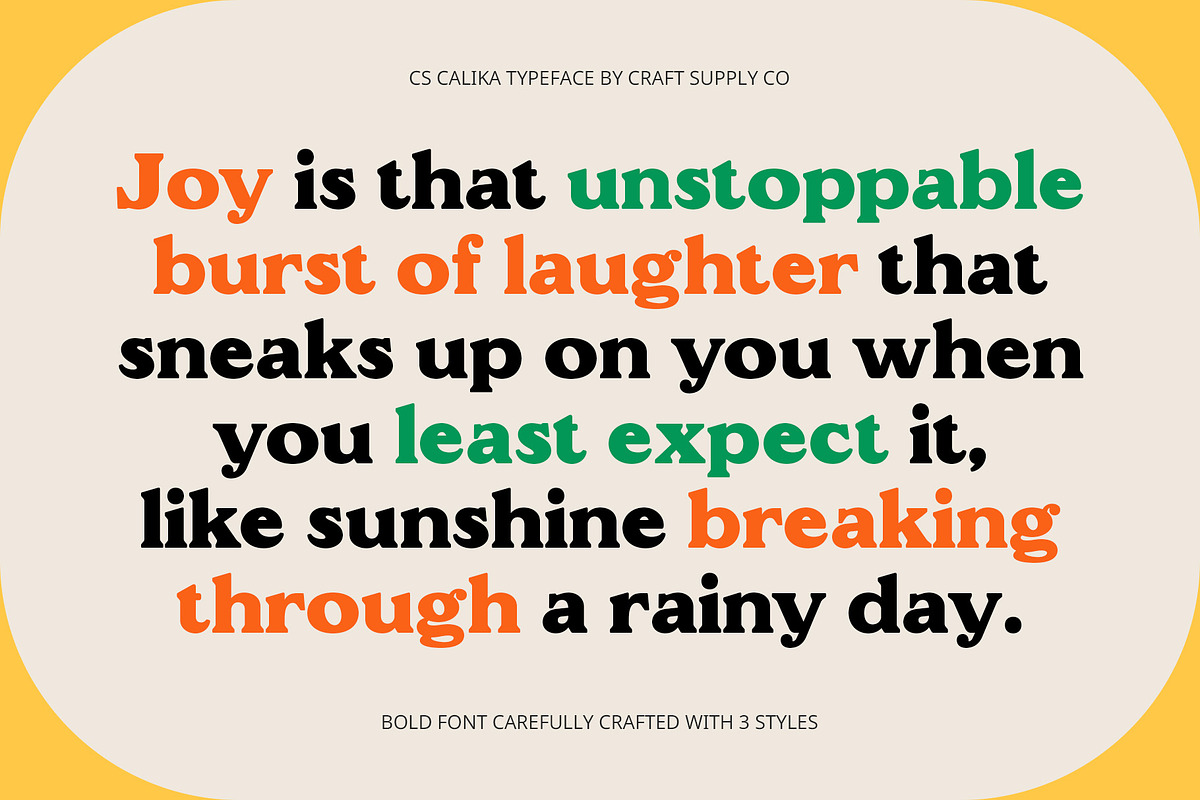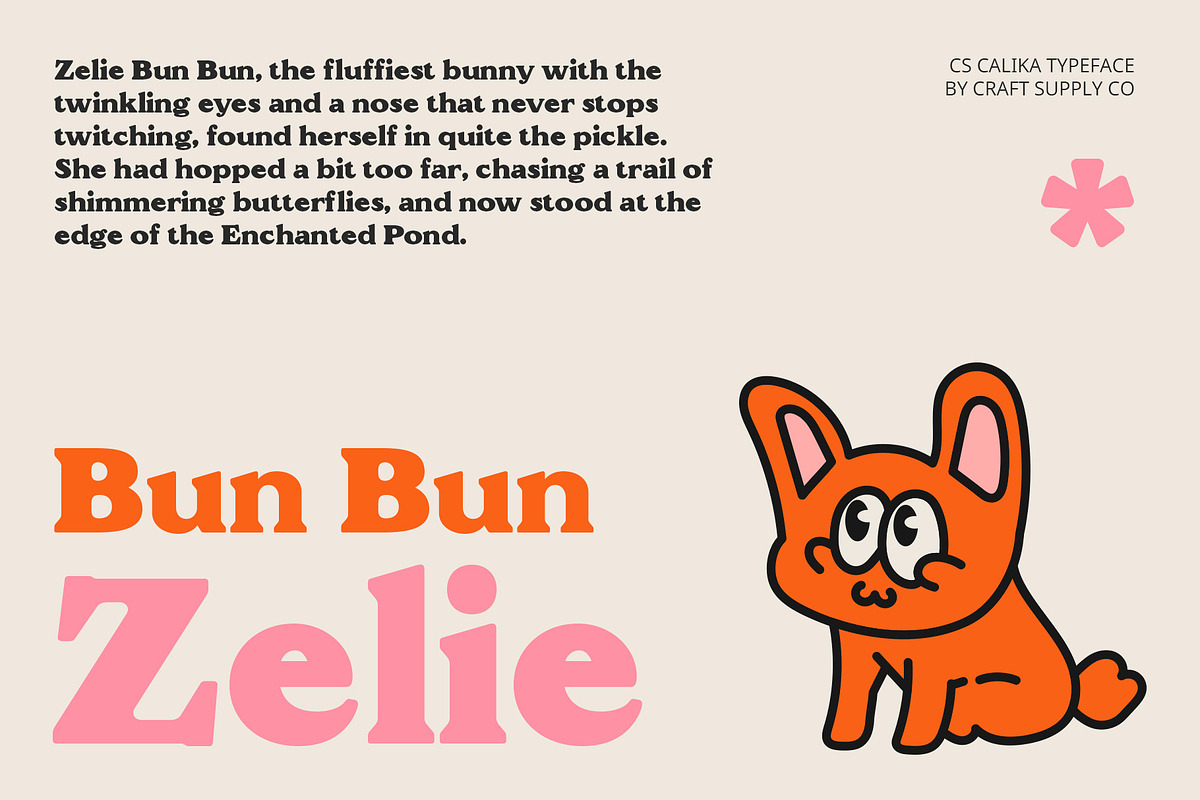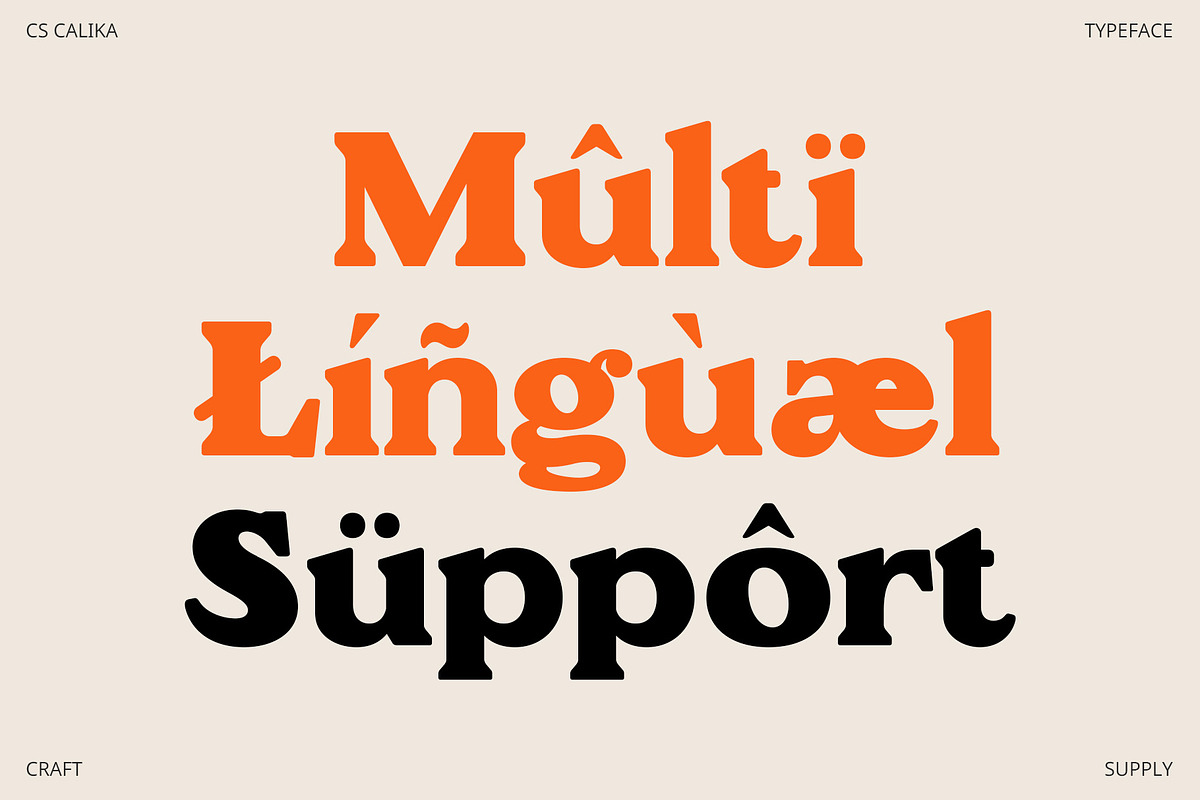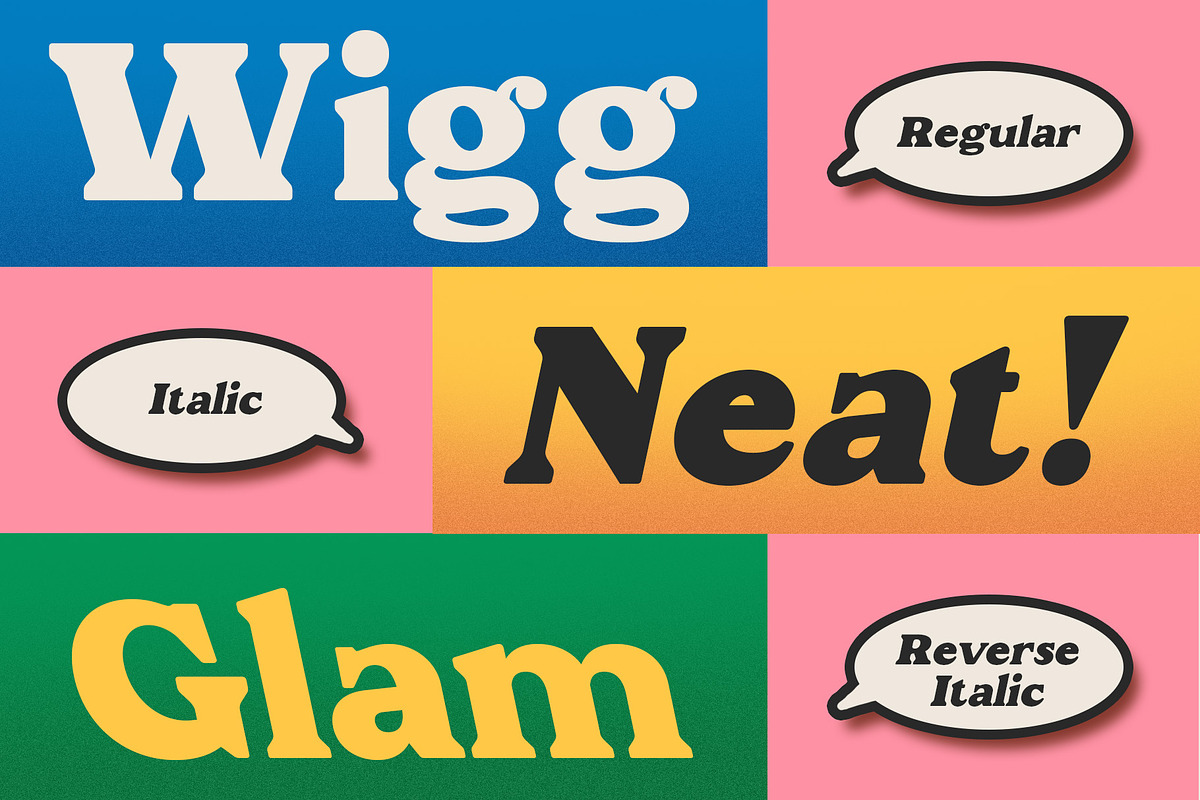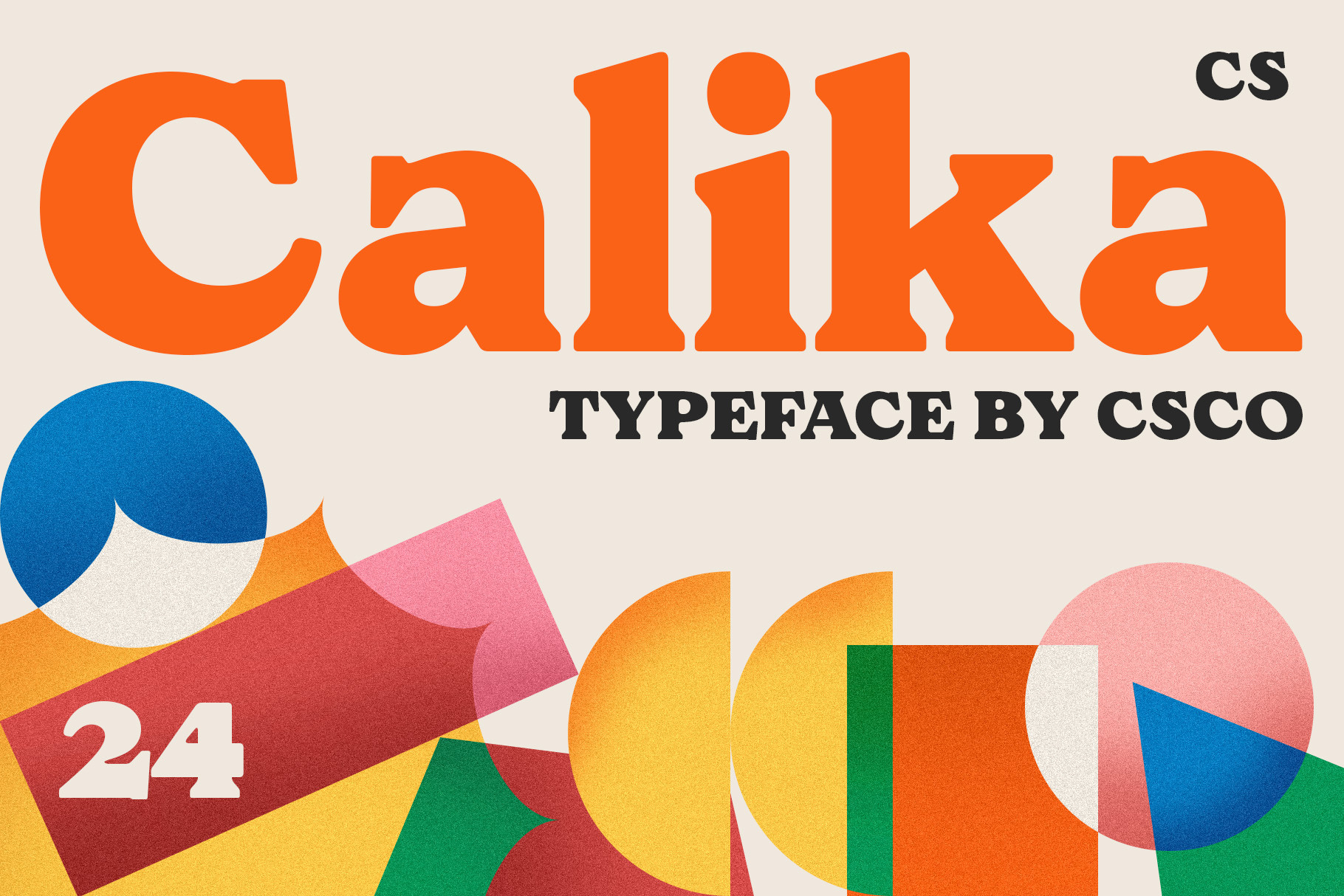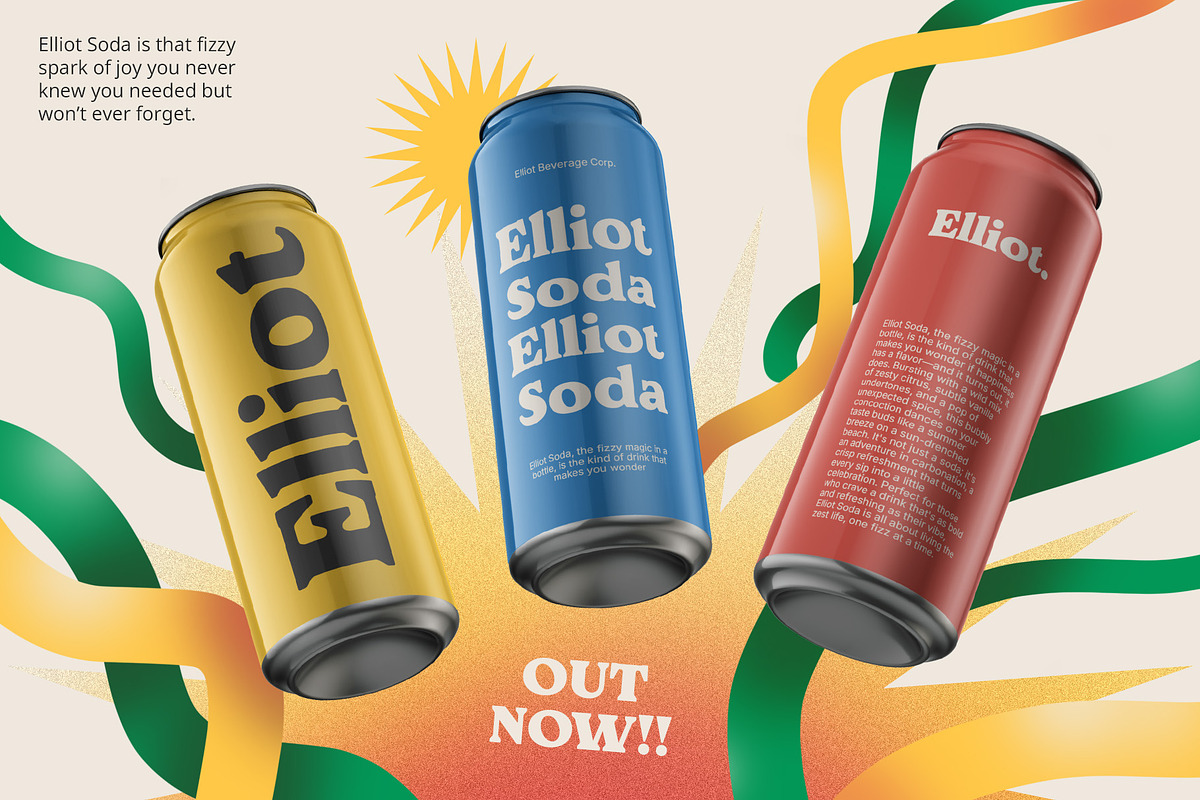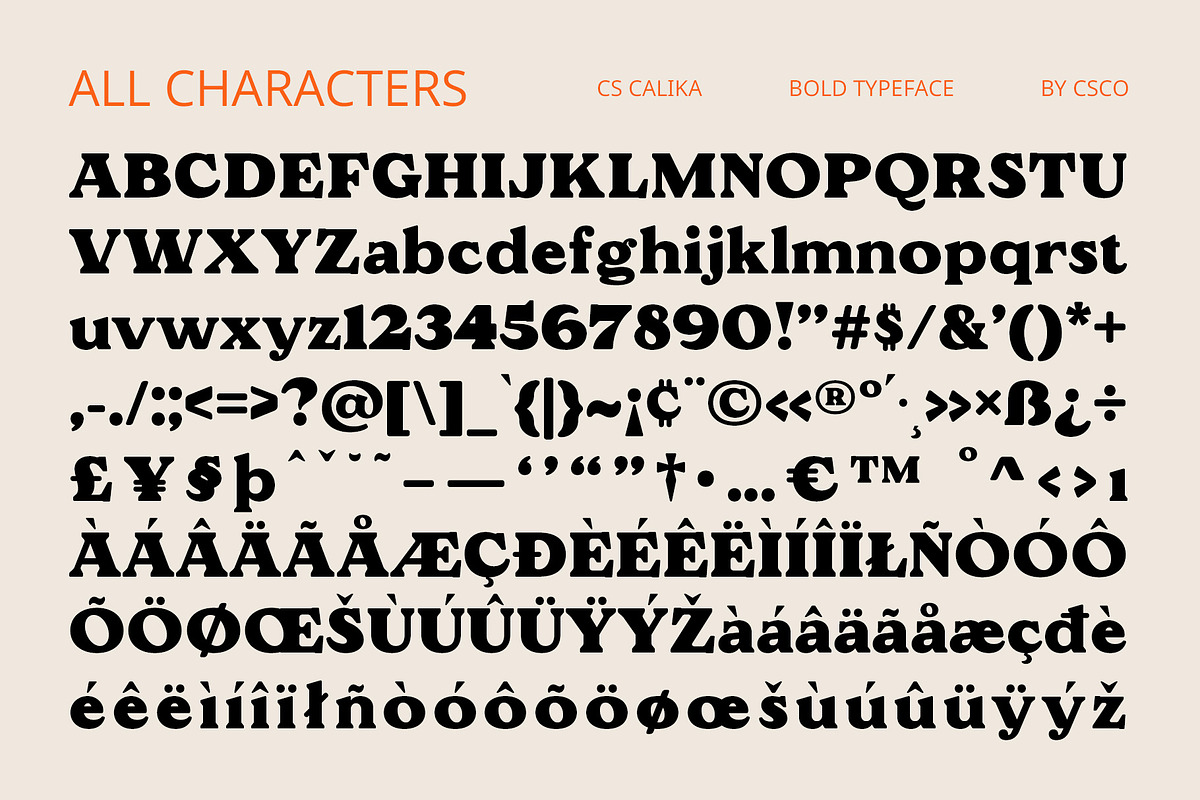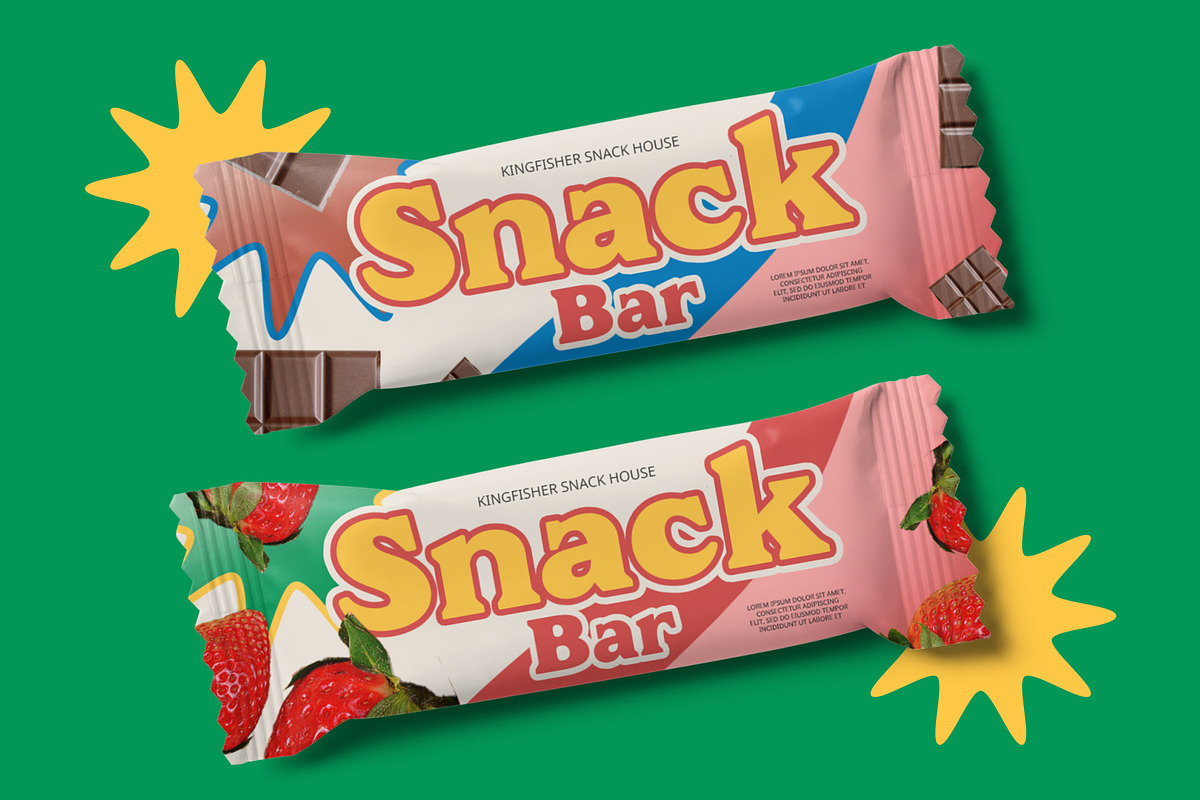
CS Calika – Bold Font
CS Calika – Bold Font: Reviving Retro Elegance with a 90s Twist
Bold Serif with a 90s Nostalgia CS Calika is a bold serif font that captures the essence of the 1990s with its striking presence and vintage flair. The bold form of this font ensures a commanding impact, while the distinctive serif design harks back to the graphic styles and advertisements of the era. The thick letters and strong outlines create a robust, attention-grabbing appearance that embodies the spirit of 90s design.
Nostalgic Inspiration for Classic Designs Drawing inspiration from the bold and vibrant graphic design of the 90s, CS Calika features elements reminiscent of that iconic decade. Its thick strokes and strong outlines are perfect for evoking the authenticity of retro posters, advertisements, and other vintage materials. This font brings a nostalgic touch to any project, making it an excellent choice for designs that aim to celebrate and revive the distinctive style of the 90s.
Perfect for Vintage Branding and Promotion CS Calika excels in applications where a bold and nostalgic aesthetic is desired. Ideal for vintage branding, poster designs, and promotional materials, this font adds a layer of retro charm to modern projects. Whether you’re creating a nostalgic marketing campaign or a stylish retro-themed event, CS Calika provides the perfect blend of classic elegance and 90s nostalgia, ensuring your designs make a memorable impression.